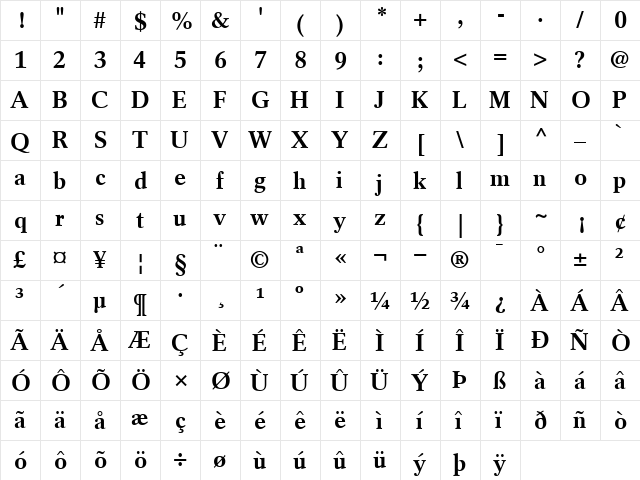
Rotation Bold
Design Context for Rotation Typeface
Rotation offers clean, dependable letterforms without strong stylistic allegiance, making it a practical choice for designers who need flexibility. Its bold stroke weight gives it real presence on the page.
Pro Tip: Use Rotation in both headline and body roles to test its range before committing to a single application.